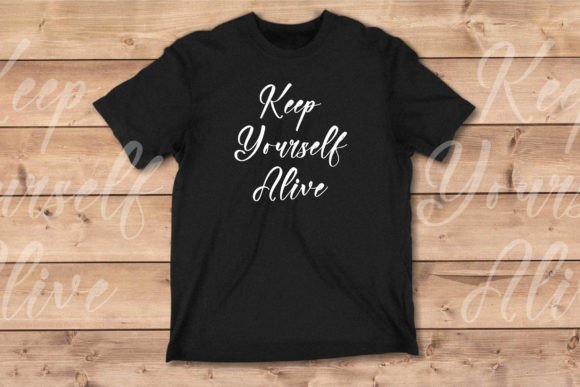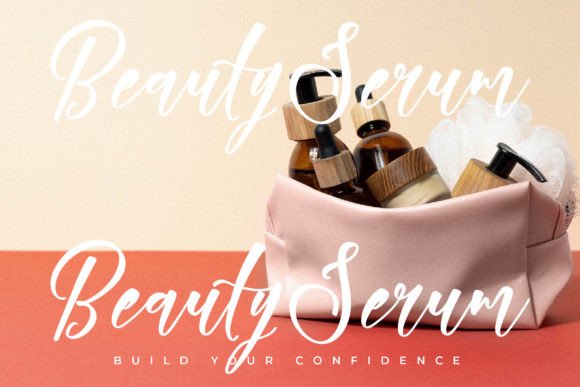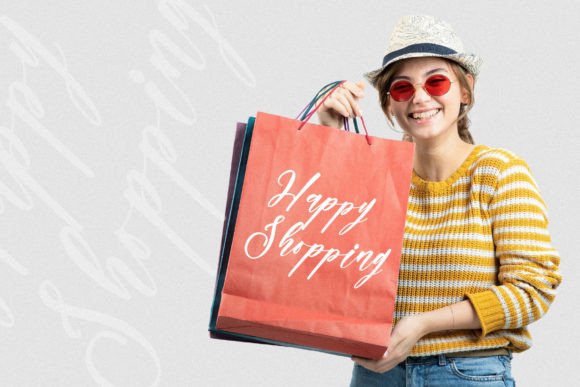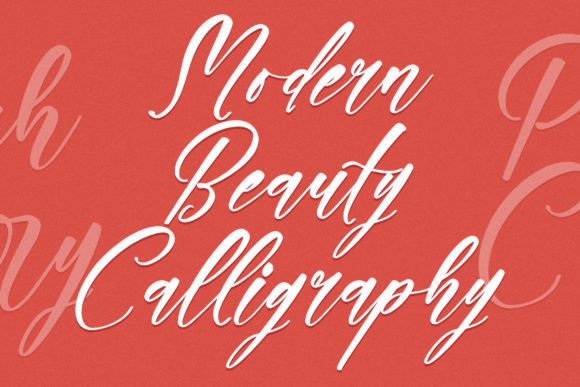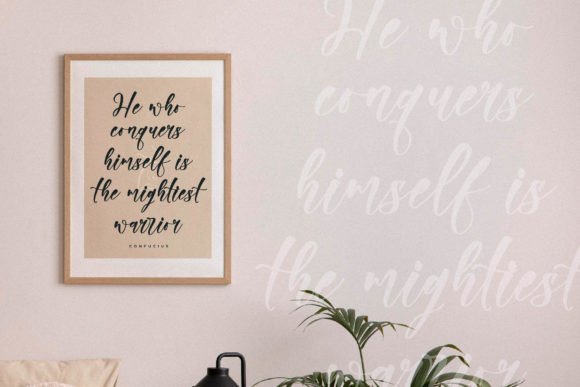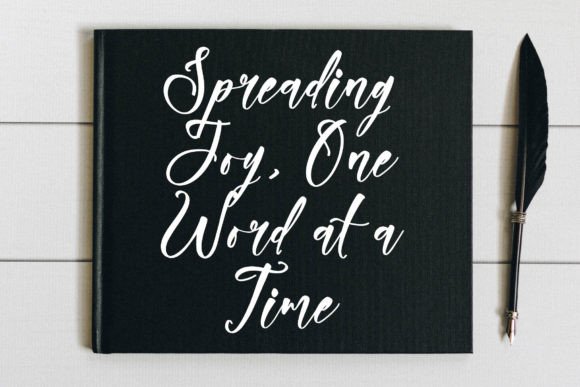
Introduction to Peach Cherry Font
As a designer, there’s nothing quite like the thrill of discovering a new, high-quality font that elevates your creative project to the next level. I still remember the moment I stumbled upon the Peach Cherry Font – its beautiful script style and versatility instantly caught my attention. Whether you’re working on a branding project, designing homeware, or creating a special event invitation, this modern calligraphy font is sure to add a touch of elegance and sophistication to your work.
The Peach Cherry Font is a valuable resource for designers, offering a wide range of applications, from logos and product packaging to name cards and greeting cards. With its transparent background and high-quality design, this font is perfect for projects that require a beautiful script style. And the best part? It’s available for free download, making it an accessible and affordable addition to your design toolkit.
Peach Cherry Font Key Features
- Unique Script Font: The Peach Cherry Font is a beautiful, handwritten script font perfect for creative projects that require a personal touch.
- High-Quality Design: This font features a high-quality design with intricate details, making it an excellent resource for designers.
- Transparent Background: The font comes with a transparent background, allowing you to easily customize and combine it with other design elements.
- Large Character Set: This font features a large character set, including uppercase and lowercase letters, numbers, and punctuation marks.
- Perfect for Digital and Print: With its high resolution and clear typography, the Peach Cherry Font is suitable for both digital and print designs, making it an excellent choice for creative projects.
Honest Review: Peach Cherry Font
I recently had the chance to work with the Peach Cherry Font, and I must say it’s been a delightful experience. This font is perfect for anyone looking to add a touch of whimsy to their creative project.
What Works Well:✨
- Unique and playful design: The Peach Cherry Font features a one-of-a-kind design that’s sure to catch the eye.
- High quality: The font is well-crafted and displays beautifully on various devices, from web to print.
- Transparent background: This feature allows for seamless integration with any design, giving you complete creative control.
Limitations:⚠️
While I was impressed with the Peach Cherry Font, there are a few limitations to consider.
- Limited font styles: Unfortunately, the font only comes in a few styles, which may limit its versatility for certain projects.
- No additional font weights: This could be a drawback for designers who need more flexibility with font weights.
Overall, I’m pleased with the Peach Cherry Font, and I’d definitely recommend it to designers looking for a fun and creative resource. While it may have some limitations, its unique design and high quality make it a valuable addition to any design arsenal.
Open Adobe Photoshop or Illustrator and select the Peach Cherry Font from the font library. You can use this font to create high-quality designs, such as logos, brochures, and business cards. The Peach Cherry Font is a great addition to any design project.
Open PowerPoint or Word and select the Peach Cherry Font from the font library. You can use this font to create engaging presentations and documents. The Peach Cherry Font is a great choice for any project that requires a unique and eye-catching font.
To get the most out of the Peach Cherry Font, experiment with different font sizes, colors, and combinations. You can also use this font in conjunction with other design elements, such as images and graphics, to create a visually appealing design.
The Peach Cherry Font is suitable for a variety of design projects, including social media graphics, presentations, posters, and business cards. It’s also a great choice for creating unique and eye-catching designs for your website or blog.